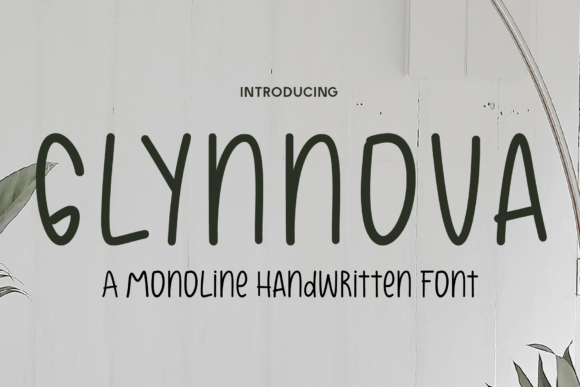
Glynnova Font: A Playful and Approachable Monoline Handwritten Font
In the world of typography, fonts play a crucial role in conveying the tone and personality of a brand or design. Among the numerous fonts available, Glynnova stands out as a unique and captivating monoline handwritten font. Designed to capture the ease and spontaneity of casual penmanship, Glynnova exudes warmth and personality, making it an excellent choice for projects that require a human touch.
Characteristics of Glynnova Font
Glynnova is characterized by its tall x-height, rounded terminals, and consistent stroke width. These features contribute to its playful and approachable feel, setting it apart from more formal and traditional fonts. The tall x-height ensures that the font remains legible, even at smaller sizes, while the rounded terminals add a touch of softness and friendliness. The consistent stroke width gives Glynnova a sense of fluidity and continuity, reminiscent of handwritten text.
Key Features of Glynnova:
- Tall x-height: Ensures legibility and a clear appearance, even at smaller font sizes.
- Rounded terminals: Adds a touch of softness and friendliness to the font.
- Consistent stroke width: Gives Glynnova a fluid and continuous feel, similar to casual handwriting.
- Playful and approachable: Perfect for designs that require a human touch and a personal feel.
Uses of Glynnova Font
Glynnova is a versatile font that can be used in a variety of design projects. Its playful and approachable nature makes it ideal for:
Ideal Use Cases for Glynnova:
- Branding: Use Glynnova to create a friendly and approachable brand identity that resonates with your audience.
- Social Media Posts: Add a personal touch to your social media content with Glynnova’s playful and modern feel.
- Packaging: Make your product packaging stand out with a font that conveys warmth and personality.
- Children’s Designs: Perfect for children’s books, educational materials, and playful kid-friendly content.
- Greeting Cards: Add a personal and heartfelt touch to your greeting cards and invitations.
- Lifestyle Blogs: Use Glynnova to create engaging and relatable content for lifestyle and personal blogs.
Design Philosophy Behind Glynnova
The design of Glynnova is centered around creating a balance between informal charm and modern simplicity. Each character is thoughtfully designed to maintain legibility while preserving a handcrafted feel. This balance makes Glynnova a versatile font that can be used in a wide range of design projects, from fun headlines and quirky product labels to personalized stationery.
Design Elements:
- Legibility: Carefully designed characters ensure that Glynnova remains clear and readable, even at smaller sizes.
- Handcrafted Feel: Each character is crafted to provide a personal and unique touch to your designs.
- Modern Simplicity: Glynnova combines playful elements with a clean and modern aesthetic.
Benefits of Using Glynnova Font
Using Glynnova in your design projects offers several benefits:
Key Benefits:
- Unique Voice: Glynnova brings a fresh and unique voice to your words, setting your designs apart.
- Emotional Connection: The playful and approachable nature of Glynnova helps create an emotional connection with your audience.
- Versatility: Suitable for a wide range of design projects, from digital content to print materials.
- Readability: Ensures that your message is conveyed clearly and effectively.
How to Use Glynnova Effectively in Design
To make the most of Glynnova, consider the following tips:
Tips for Effective Use:
- Pair with Complementary Fonts: Use Glynnova in combination with other fonts to create visual interest and hierarchy.
- Adjust Font Sizes: Experiment with different font sizes to emphasize key messages and create a dynamic layout.
- Utilize Color: Enhance the playful nature of Glynnova by using vibrant and engaging colors.
- Maintain Consistency: Use Glynnova consistently across your design projects to build brand recognition and cohesion.
Glynnova is a versatile and captivating monoline handwritten font that brings a playful and approachable feel to your designs. With its tall x-height, rounded terminals, and consistent stroke width, Glynnova exudes warmth and personality, making it perfect for projects that require a human touch. Whether you’re working on branding, social media posts, packaging, children’s designs, greeting cards, or lifestyle blogs, Glynnova strikes a balance between informal charm and modern simplicity. By incorporating Glynnova into your design projects, you can add a unique voice and emotional connection to your words, ensuring that your message resonates with your audience.
Glynnova Font: Key Takeaways
- Playful and Approachable: Glynnova’s design captures the ease and spontaneity of casual penmanship.
- Versatile: Suitable for a wide range of design projects, including branding, social media, packaging, and more.
- Legible and Handcrafted: Maintains readability while preserving a unique, handcrafted feel.
- Emotional Connection: Helps create a personal and emotional connection with your audience.